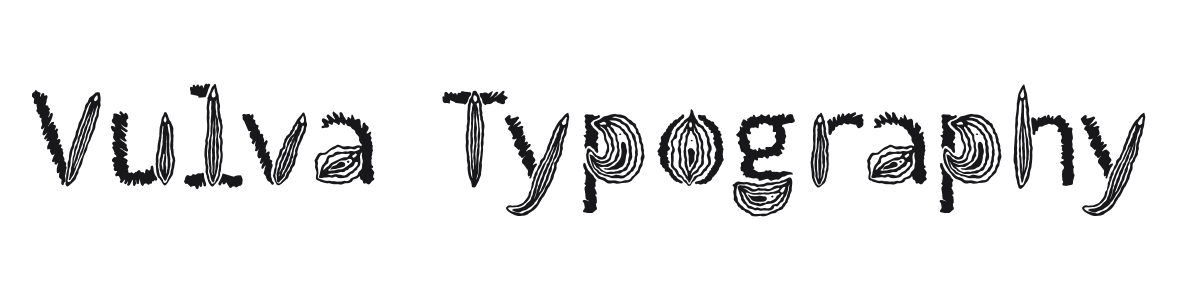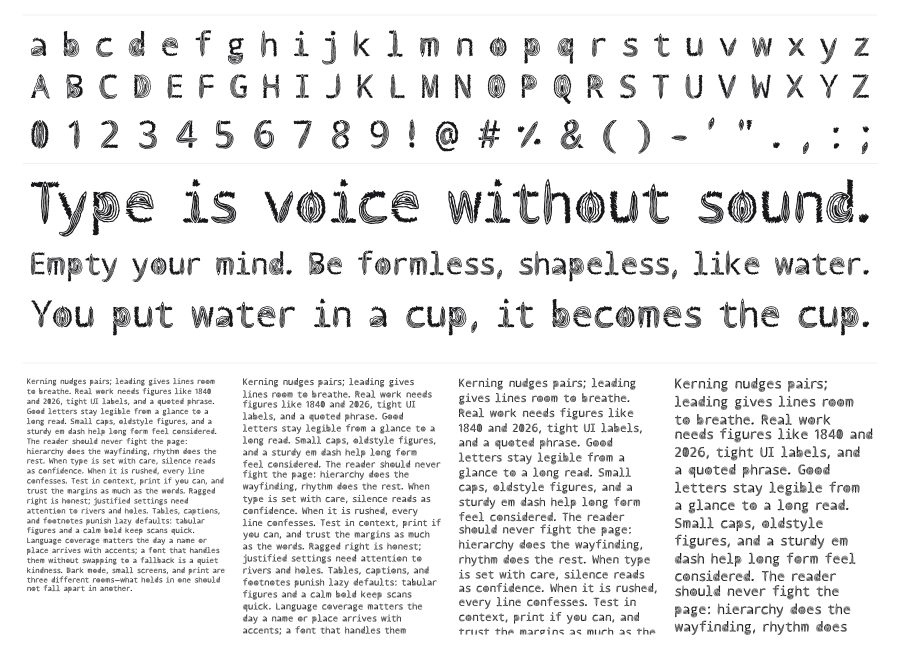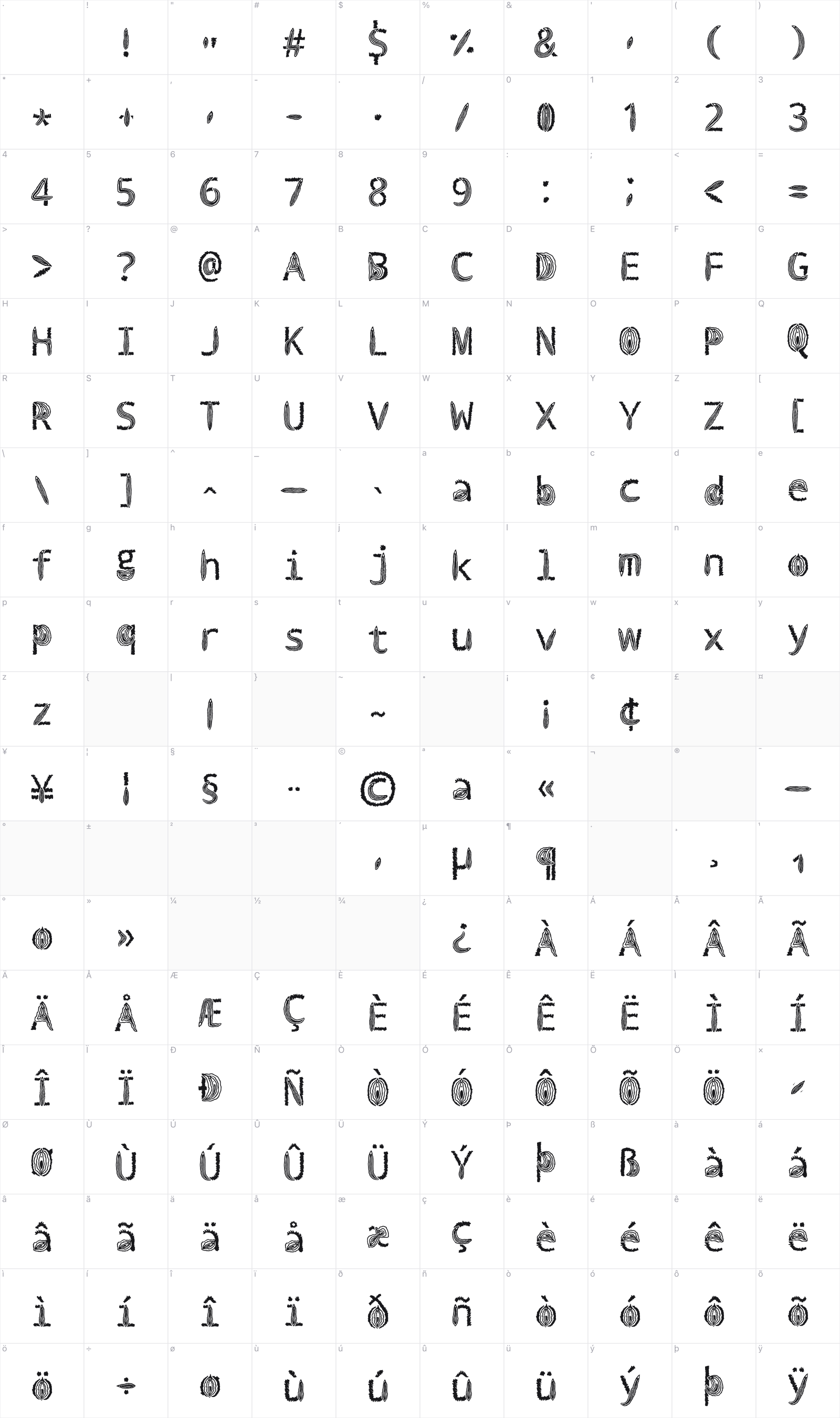
Vulva Typography
Vulva Typography is a novelty display font by French designer Félix Farjas, where every character is reimagined as a stylized vulva with hand-drawn hatching lines. The result sits somewhere between anatomical illustration and playful lettering, with a rough sketched texture that makes each glyph feel handcrafted. It was made with a specific purpose: to give women a visual tool to reclaim and celebrate their own bodies.